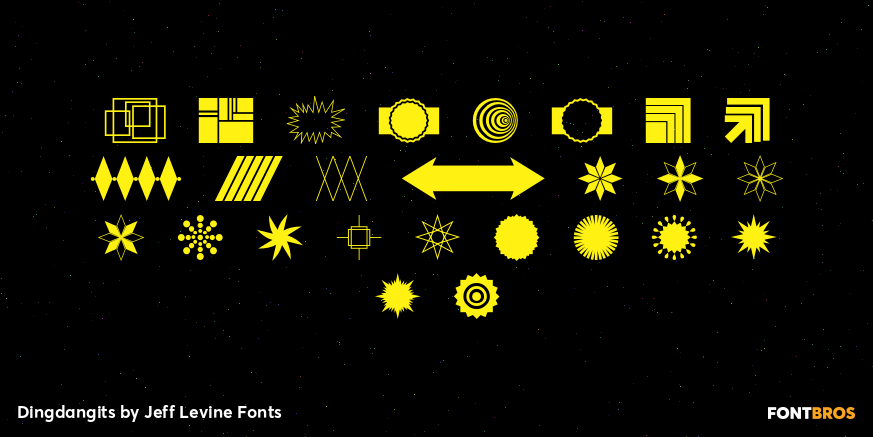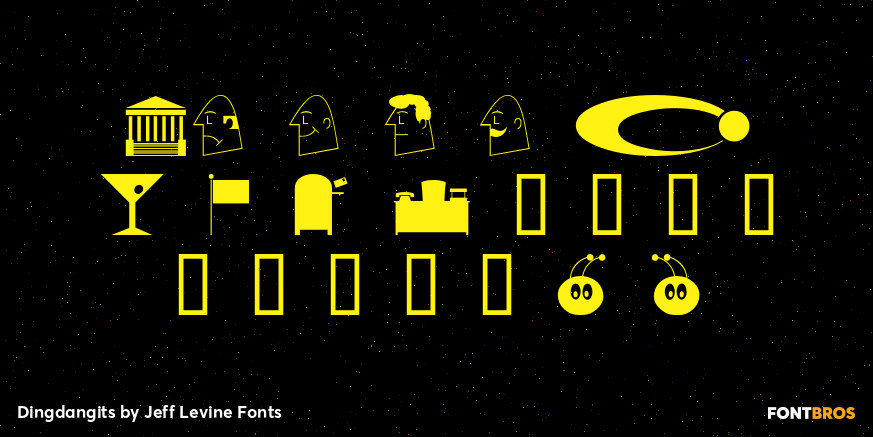
Dingdangits
Stars, faces, ornaments... a little of this-and-that comprises Dingdangits JNL, the companion dingbat font to Dingits JNL and Dangits JNL.